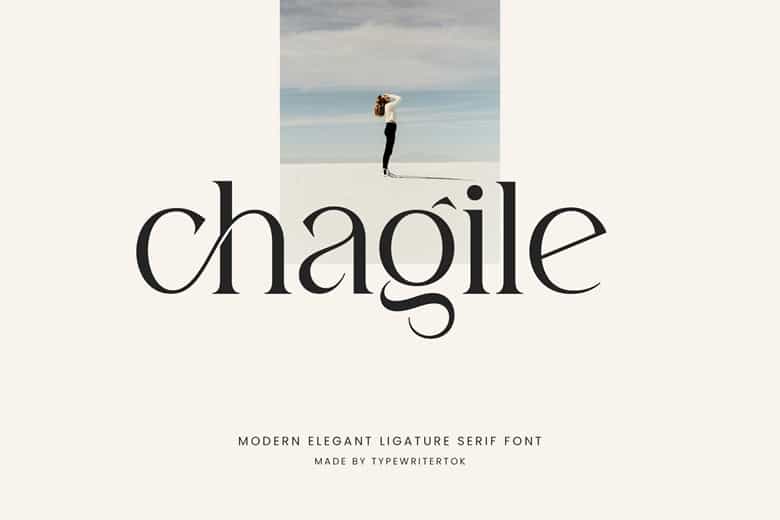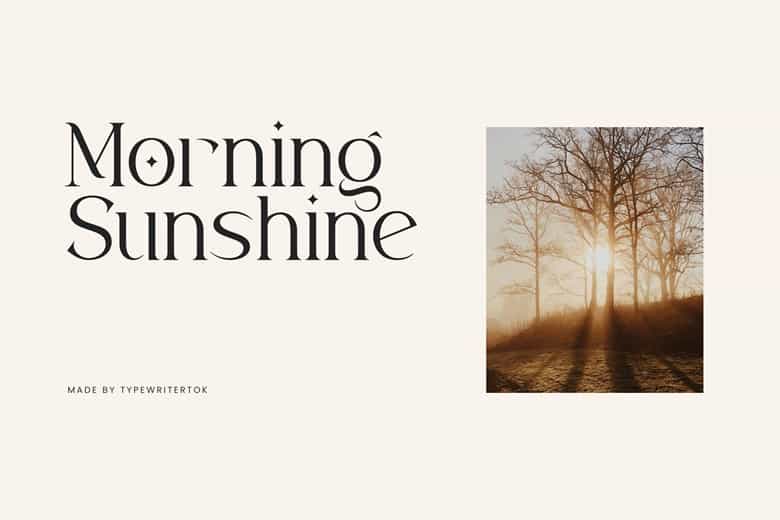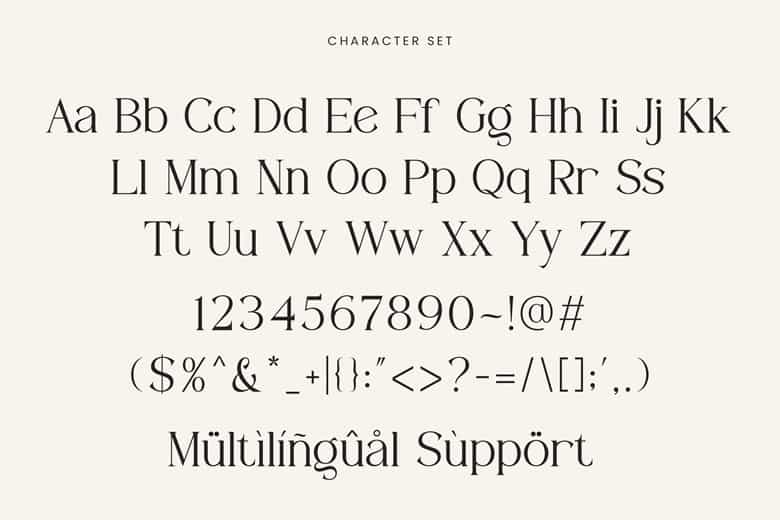
Chagile is an elegant appearance with interesting styles created by ligatures. The charm and elegance of its letters fit well with designs that want to appeal to quality, class and a bit of luxury. You can use this type of font to help brand your business, package your goods, design logos and branding, as well as in wedding stationery.